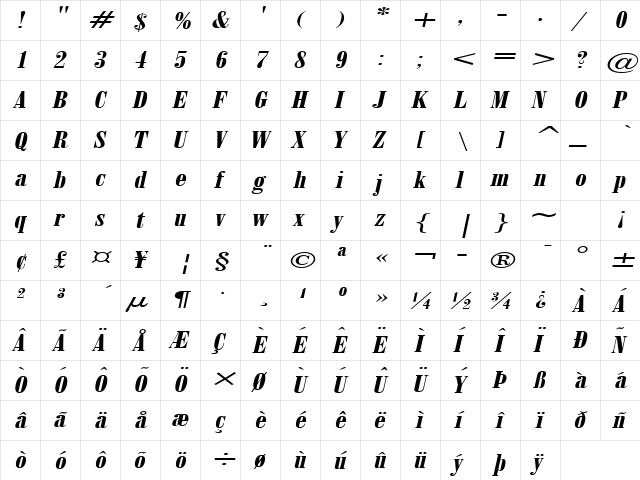
June 15 Extended Italic
Design Context for June 15 Extended Typeface
June 15 Extended takes a measured approach to typography — its balanced proportions and neutral character make it a reliable workhorse for both digital and print work. Its italic angle brings a sense of urgency and motion to the letterforms.